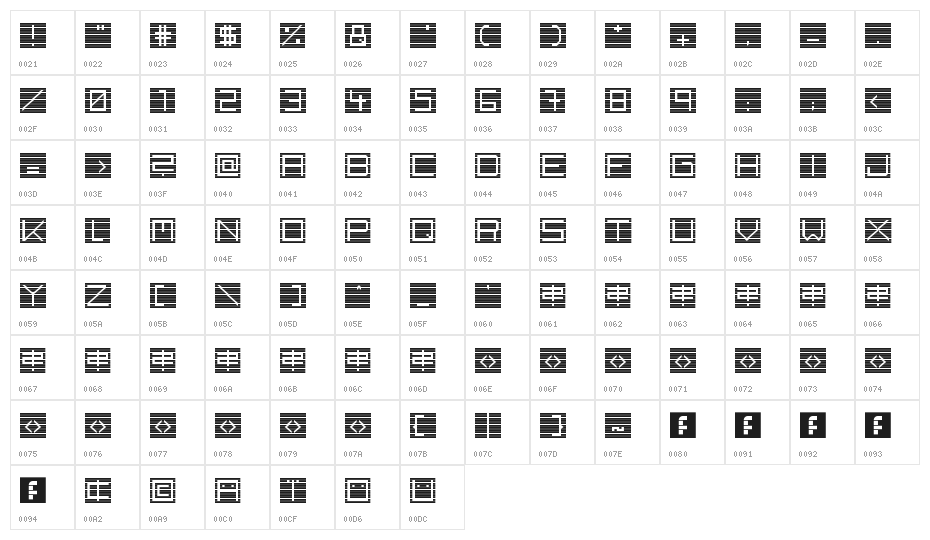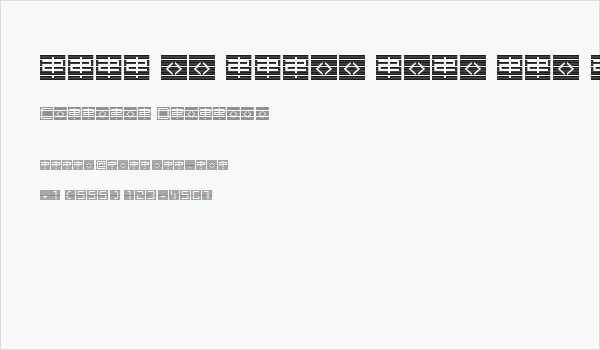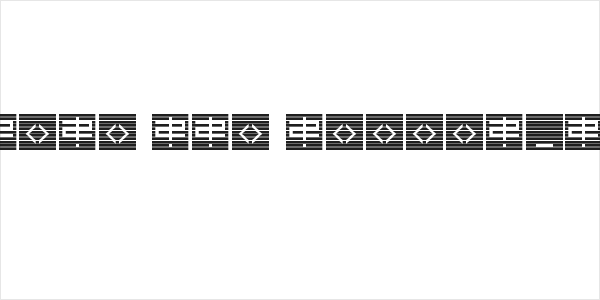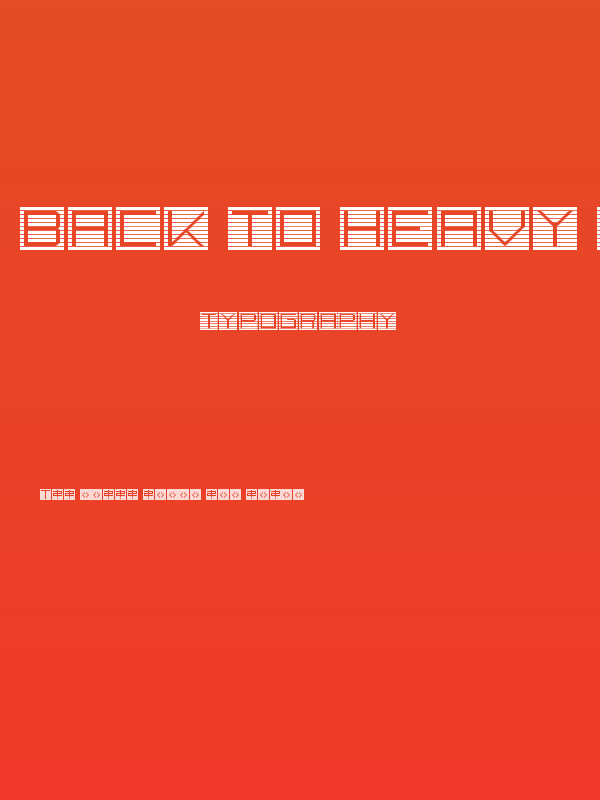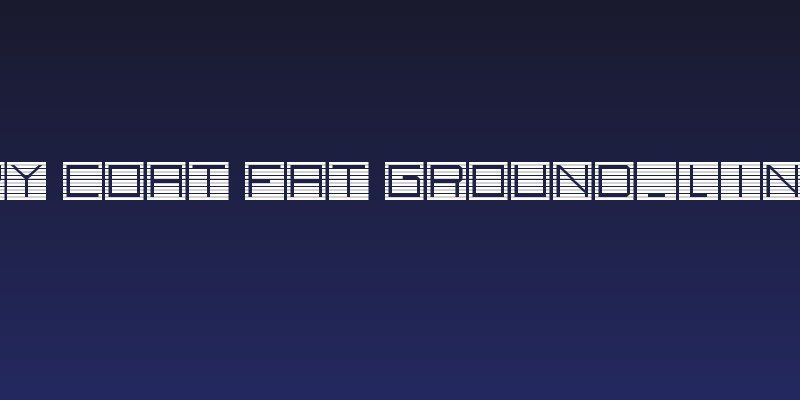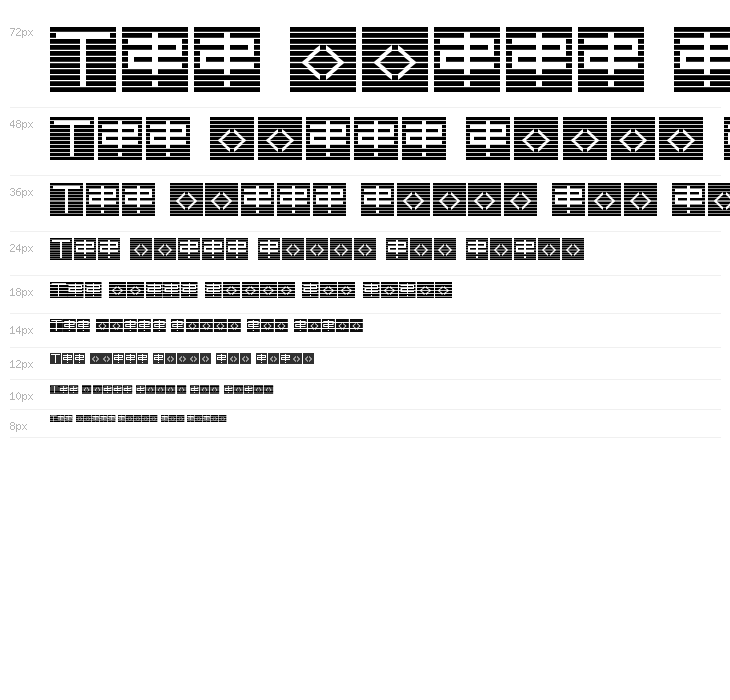
back to heavy coat fat ground_line-h Regular Font
back to heavy coat fat ground_line-h Regular Description
This font features a unique design with a grid-like pattern that incorporates horizontal lines through each character, creating a striking visual effect. The characters are blocky and geometric, with a consistent thickness throughout. The uppercase and lowercase letters, as well as the numbers and special characters, all maintain this structured appearance, giving the font a cohesive and modern look. The style is reminiscent of digital or electronic displays, making it suitable for futuristic or tech-themed projects. The uniformity in the design ensures readability while adding a decorative element to the text.
| Proposed Projects | Ideal for tech-themed designs, digital displays, posters, and branding that requires a futuristic touch. |